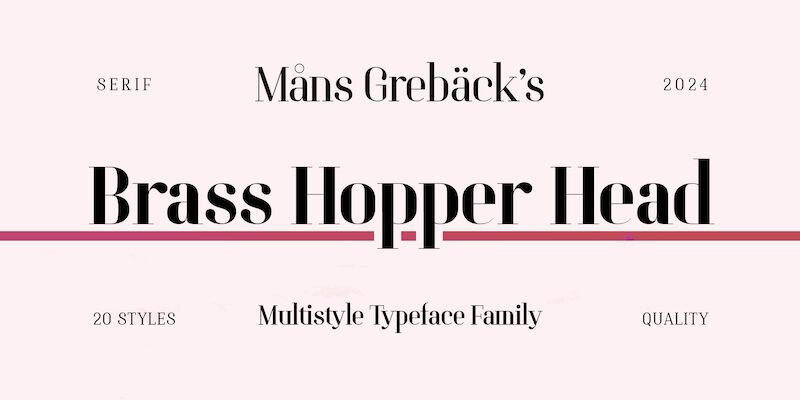
Brass Hopper Head PERSONAL Regular
Brass Hopper Head is a striking serif font characterized by its robust letterforms that evoke stability and strength. The bold shapes create an architectural quality, making it exceptionally suited for art exhibitions and architectural projects where clarity and precision are paramount. Its elegant yet commanding presence ensures that any text stands out, drawing the eye with its distinctive flair.
This versatile typeface also adapts to various design needs thanks to its variable styling options, allowing designers to customize weight and style effortlessly. Whether used in signage, editorial layouts, or branding materials, Brass Hopper Head delivers a refined sophistication that enhances visual storytelling while maintaining an air of professionalism. Embrace the unique charm of this font for impactful designs that resonate with audiences.